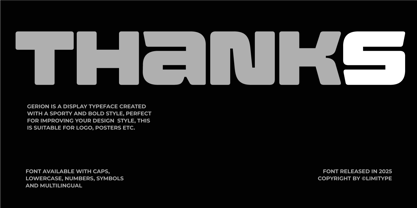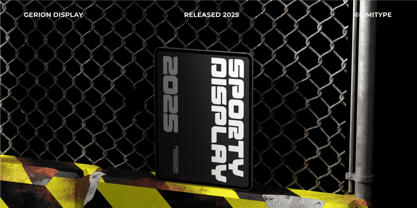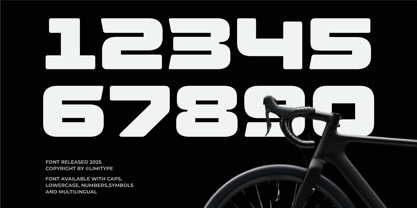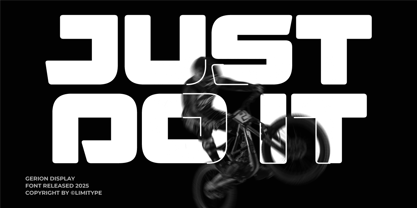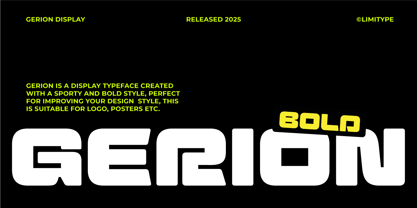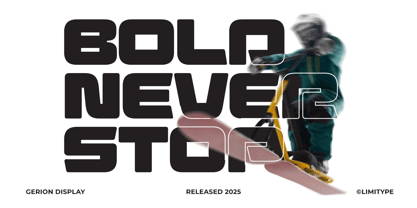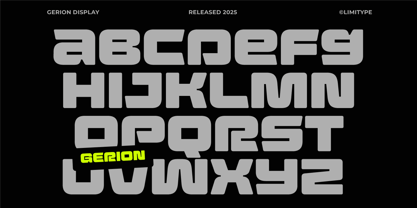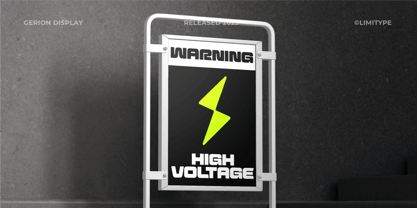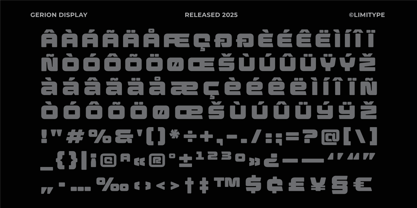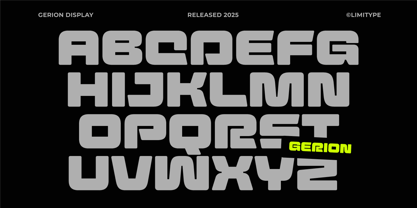
Gerion
by limitype
The Gerion Font Family was designed by Muhammad Muammar, Furqan Sudirman and published by limitype. Gerion contains 1 styles.
Gerion is a bold modern font that combines a dynamic and futuristic style with striking visual impact. Its rounded, heavy letterforms bring out a sense of strength, confidence, and forward-thinking energy, making it stand out in any design. The balance between solid structure and smooth curves allows Gerion to remain versatile while still maintaining a bold personality. Whether used for powerful headlines, attention-grabbing posters, stylish branding, Esports visuals, or contemporary digital campaigns.
- Uppercase
- Lowercase
- Number
- Symbol
- Multilingual
Designers: Muhammad Muammar, Furqan Sudirman
Publisher: limitype
Foundry: limitype
Design Owner: limitype